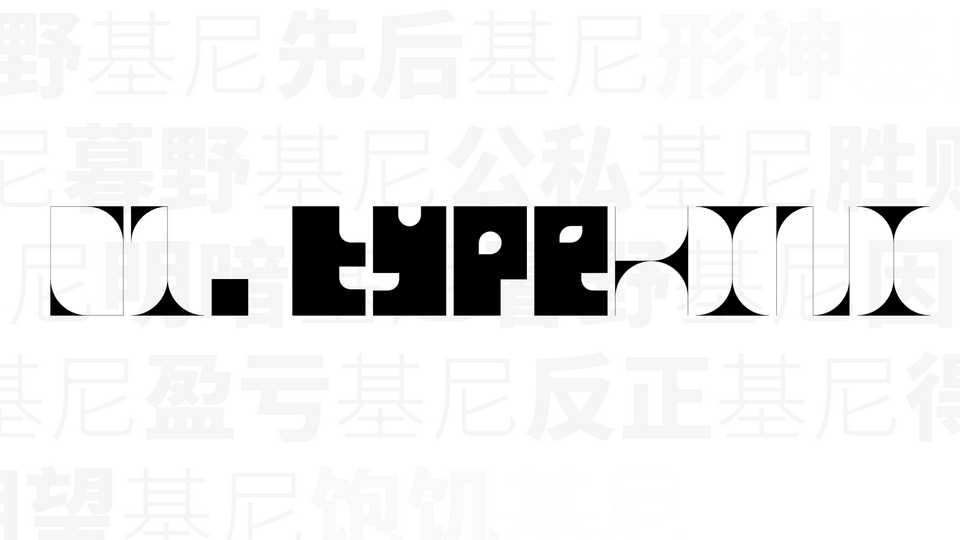
Download 01.typeKINI font, an open source mono geometric variable typeface for graphic design. 01.typeKINI was originally made for sharp high contrast metal jewelry made by modern industry.